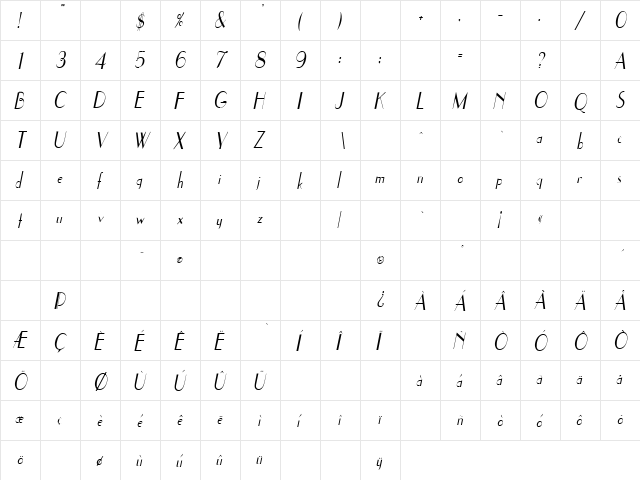
Coke 16 Regular
Design Context for Coke 16 Typeface
Coke 16 takes a measured approach to typography — its balanced proportions and neutral character make it a reliable workhorse for both digital and print work.